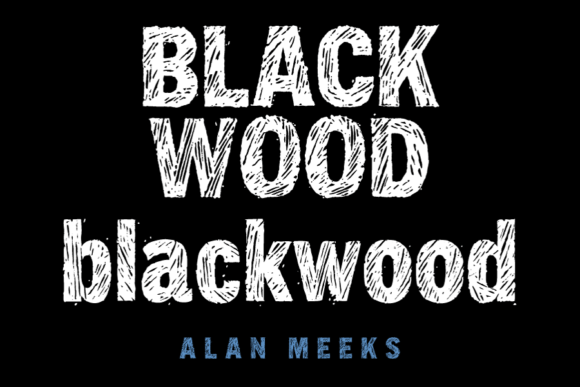
The Blackwood Font: A Designer’s New Best Friend?
I still remember the project like it was yesterday. I was working on a branding campaign for a sustainable furniture company, and I needed a font that would convey strength, eco-friendliness, and a touch of rustic charm. After hours of scrolling through font libraries and trying out different combinations, I stumbled upon Blackwood – a sans serif display headline font with a unique woodgrain effect. It was love at first sight! 💡
What I Love About Blackwood ✨
- Strong, solid forms that command attention ✅
- The distinctive woodgrain effect adds a touch of warmth and texture 🌿
- Based on Grotesk, but with a unique twist that sets it apart 🔍
- Perfect for headlines, titles, and display text 📣
- May not be suitable for body text or smaller font sizes ⚠️
- The woodgrain effect can be overwhelming if not used thoughtfully 🌪️
- Limited availability of stylistic alternates 🔜
The Story Behind Blackwood
Blackwood was designed by a team of creatives who wanted to create a font that would evoke the feeling of natural, earthy materials. Inspired by the textures of wood and stone, they crafted a font that would be both strong and inviting. The result is a unique sans serif display headline font that adds a touch of warmth and character to any design.
| Font Name | Blackwood Font |
| Author | Alan Meeks |
Q: What is the best way to use Blackwood in a design?
A: Blackwood is best used as a display font for headlines, titles, and captions. Use it sparingly to add emphasis and visual interest to your design.
Q: Can I use Blackwood for body text?
A: While Blackwood can be used for body text, it may not be the most readable choice for smaller font sizes. Consider using a clear, sans serif font for body text and reserving Blackwood for headlines and titles.
Q: Is Blackwood a versatile font?
A: Yes, Blackwood is a versatile font that can be used in a variety of design contexts, from branding and advertising to packaging and digital design.